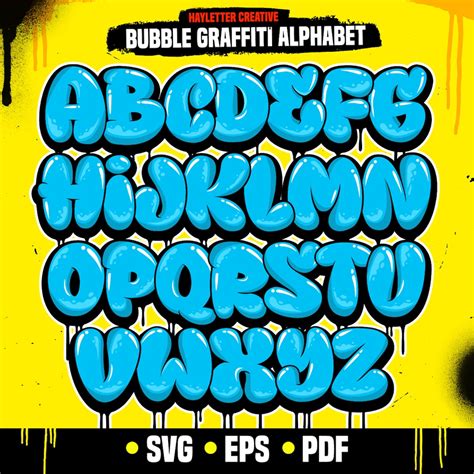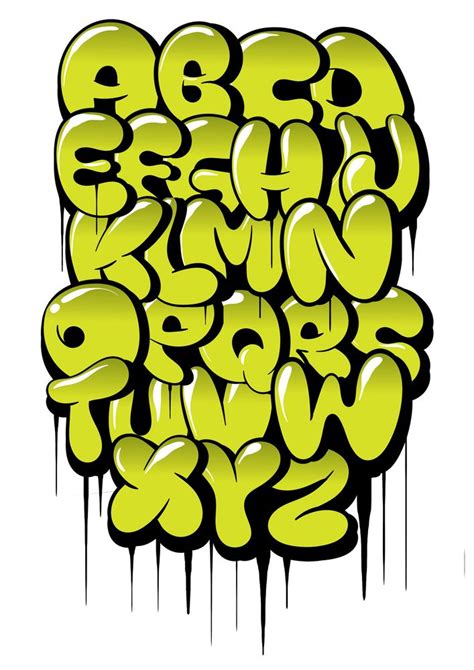
Bubble Letter Font Graffiti: Styles & Tutorials For Artists
Readers, have you ever seen a stunning piece of graffiti art with letters that pop out at you, almost like they're three-dimensional? That captivating effect is achieved using bubble letter fonts, a popular style in graffiti art that adds a touch of whimsy and playfulness to any message. But mastering the art of bubble letter font graffiti requires more than just a can of spray paint and a steady hand. It's about understanding the principles of design, exploring different styles, and practicing your technique.
Creating bubble letter fonts demands creativity, precision, and an eye for detail. Whether you're a seasoned graffiti artist or a beginner eager to learn, this guide will provide you with the essential knowledge and tips to create captivating bubble letter fonts that stand out from the crowd.
The Allure of Bubble Letter Fonts in Graffiti Art
Bubble letter fonts are a captivating style of graffiti that's renowned for its unique charm and ability to transform ordinary messages into eye-catching works of art. The rounded, inflated shapes of these letters create a playful and whimsical feel, making them ideal for expressing creativity and individuality.
Why Bubble Letter Fonts Are So Popular
Bubble letter fonts have become a staple in graffiti art for several reasons:
- Visual Appeal: The rounded, inflated forms of bubble letters create a striking visual contrast against flat surfaces.
- Versatility: Bubble letters are adaptable to various styles and can be customized to express different moods and themes.
- Ease of Use: While mastering the art requires practice, the basic principles of bubble letter construction are relatively straightforward to grasp.
Types of Bubble Letter Fonts
Within the realm of bubble letter fonts, there's a diverse range of styles, each with its own unique characteristics. Some popular types include:
- Classic Bubble Letters: These letters feature a simple, rounded shape with a consistent width and height.
- Block Bubble Letters: Block letters are thicker and more angular, often featuring a bold and imposing appearance.
- 3D Bubble Letters: These letters create an illusion of depth using shading and highlights, making them appear three-dimensional.
- Cartoon Bubble Letters: These letters have a playful and quirky look, often incorporating elements like outlines, color gradients, and whimsical embellishments.
Essential Tools and Materials for Bubble Letter Graffiti
Before you embark on your bubble letter graffiti journey, assemble the essential tools and materials that will help you bring your creative vision to life.
Spray Paint Essentials
Spray paint is the quintessential medium for graffiti art. Here's a breakdown of the essential cans you'll need:
- Outline Paint: This is the paint you'll use to create the basic shapes of your letters. A black or white outline offers excellent contrast and can be used as a base for subsequent color layers.
- Fill Paint: These paints will be used to fill in the letters, adding color and vibrancy to your design.
- Stencil Paint: For creating intricate designs and adding special effects, consider using stencil paints. These paints are designed to adhere to stencil material and produce precise lines.
Additional Supplies
Beyond spray paint, you'll need a few other tools to create and enhance your bubble letter graffiti:
- Stencil Material: Stencils are invaluable for creating clean, precise lines and repeating elements in your artwork. You can use materials like adhesive vinyl, cardboard, or even plastic.
- Masking Tape: Masking tape helps you protect surrounding areas from overspray and create clean edges.
- Gloves: Gloves protect your hands from paint and provide a better grip on your spray cans.
- Dust Mask: A dust mask is crucial for protecting your respiratory system from inhaling paint fumes.
- Eye Protection: Wear safety glasses or goggles to protect your eyes from paint splashes.
Mastering the Art of Bubble Letter Construction
Creating captivating bubble letter fonts involves a systematic approach. Here's a step-by-step guide to help you master the fundamentals:
1. Sketching Your Letters
Before you begin spraying, sketch your letters on paper. This step allows you to experiment with different styles and sizes, ensuring your composition is balanced. When sketching, keep these tips in mind:
- Simplicity: Start with basic shapes and gradually add detail.
- Proportion: Pay attention to the balance of letter sizes and spacing.
- Flow: Ensure that your letters flow smoothly and connect naturally.
- Visual Interest: Add subtle curves, angles, or embellishments to break up the monotony of uniform shapes.
2. Creating the Outline
Once you're satisfied with your sketch, transfer it to your desired surface using an outline paint. Begin by spraying a light coat of paint, allowing it to dry before applying additional layers to achieve the desired opacity. It's usually best to start with a lighter outline, allowing you to adjust your lines before filling in the letters.
3. Filling In the Letters
After the outline has dried, you can start filling in the letters with your chosen fill paints. Here are some tips for smooth, professional-looking fills:
- Consistent Distance: Hold your spray can a consistent distance (around 12-18 inches) from the surface to avoid uneven color distribution.
- Smooth, Even Movements: Use smooth, even movements when spraying your letters. Avoid stopping abruptly, as this can create streaks or uneven color.
- Multiple, Light Layers: It's better to apply multiple thin layers of paint than a single thick layer, as this helps prevent paint runs and ensures a more even finish.
4. Adding Detail and Effects
After your letters are filled in, you can enhance their visual appeal using a variety of techniques:
- 3D Shading: Create an illusion of depth by adding shading to your letters. Use darker shades to create shadows and lighter shades to create highlights.
- Color Gradients: Transition from one color to another to create a smooth and eye-catching effect.
- Outline Shadows: Add a thin shadow line around the outline of your letters to create a subtle sense of depth.
- Stenciling: Use stencils to create intricate patterns or designs within or around your letters.
5. Practice, Practice!
The key to mastering any skill, including bubble letter graffiti, is practice. Don't be afraid to experiment, try different techniques, and learn from your mistakes. The more you practice, the more confident you'll become, and the more impressive your bubble letter fonts will become.
6. Understanding Perspective
Perspective is essential in bubble letter graffiti, especially when creating 3D effects. By understanding how perspective works, you can create the illusion of depth and distance in your letters. Try adding subtle changes in the thickness or color of your letters to create the effect of receding into the background, or use different shades and angles to create shadows and highlights.
Essential Tips for Beginners
For aspiring bubble letter graffiti artists, here are some tips to help you navigate the learning curve:
1. Start Simple
Don't overwhelm yourself with intricate designs. Begin with simple bubble letter forms and gradually build complexity as your skills improve.
2. Use a Grid System
A grid system can help you maintain proper proportion and spacing between your letters. Divide your surface into a grid using masking tape or a ruler, and then trace your letter outlines within the grid squares.
3. Use a Guide Image
If you're having trouble with a specific letter shape, use a guide image. Print out a bubble letter font template or find a reference image online to help you create the correct shapes.
4. Practice on Scraps
Before you commit to a surface, practice your bubble letters on scraps of paper, cardboard, or other surfaces. This will help you refine your technique and ensure you're satisfied with your design before you go all out.
5. Be Patient
Mastering bubble letter graffiti requires time and patience. Don't get discouraged if your first attempts aren't perfect. With consistent practice, you'll see continuous improvement in your skills.
Bubble Letter Font Graffiti: A Detailed Table Breakdown
| Feature | Description |
|---|---|
| Style | Bubble letter fonts offer a variety of styles, including classic, block, 3D, and cartoon variations. |
| Tools | Essential tools include spray paint (outline, fill, stencil), stencils, masking tape, gloves, a dust mask, and eye protection. |
| Construction | The process involves sketching, outlining, filling, and adding detail and effects. |
| Perspective | Understanding perspective is crucial for creating 3D effects and depth in bubble letters. |
| Practice | Consistent practice is essential for mastering bubble letter graffiti skills. |
Bubble Letter Font Graffiti: FAQs
Where can I find inspiration for bubble letter fonts?
Explore online platforms like Pinterest, Instagram, and Google Images for countless examples of bubble letter fonts. You can also find inspiration in vintage graffiti art, graphic design, and even comic books.
What are some tips for choosing a good bubble letter font?
Consider the overall message you want to convey, the style and theme of your artwork, and the visual impact you want to achieve. Choose a font that complements your design and resonates with your artistic vision.
What are some common mistakes that beginners make when creating bubble letter fonts?
Common mistakes include uneven letter spacing, inconsistent line thickness, poor color choices, and a lack of practice. Pay attention to these details, and you'll be well on your way to creating polished and professional bubble letter fonts.
Mastering the art of bubble letter font graffiti is a journey that rewards dedication and creativity. By following the tips and techniques outlined in this guide, you can develop your skills, explore different styles, and create captivating works of art that stand out from the crowd. So, grab your spray paint, stencils, and a bit of inspiration, and get ready to transform your messages into eye-catching pieces of bubble letter graffiti.